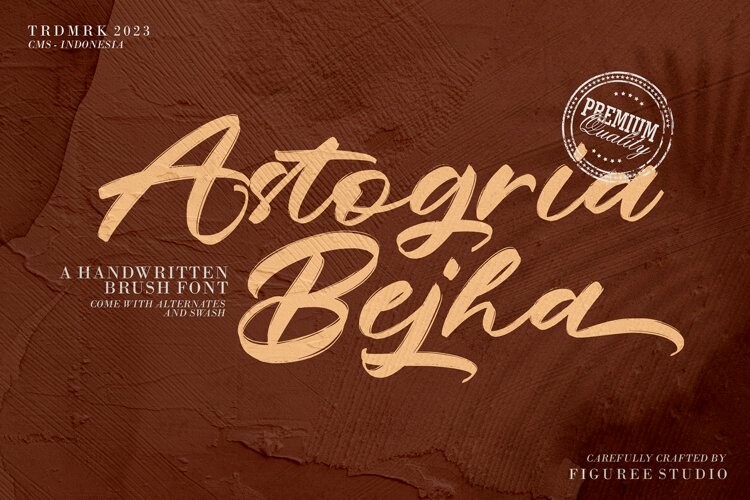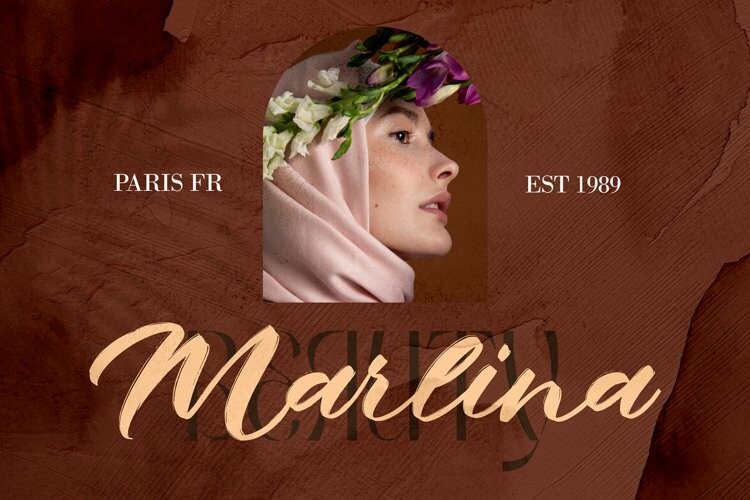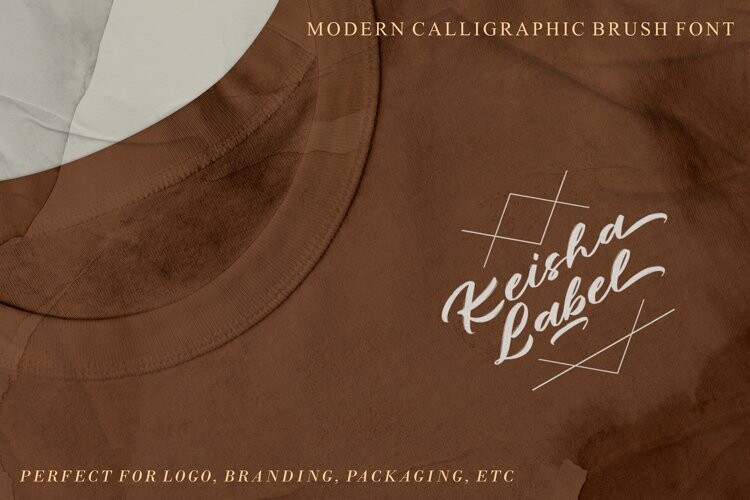
Astogria Bejha Font
Astogria Bejha FontAstogria Bejha is modern hand-drawn brush font that combines attractive curves with a fresh urban edge; delivering a stylish brush font that is guaranteed to add an eye-catching appeal to your logo designs, brand imagery, handwritten quotes, product packaging, merchandise, social media post, or website font.